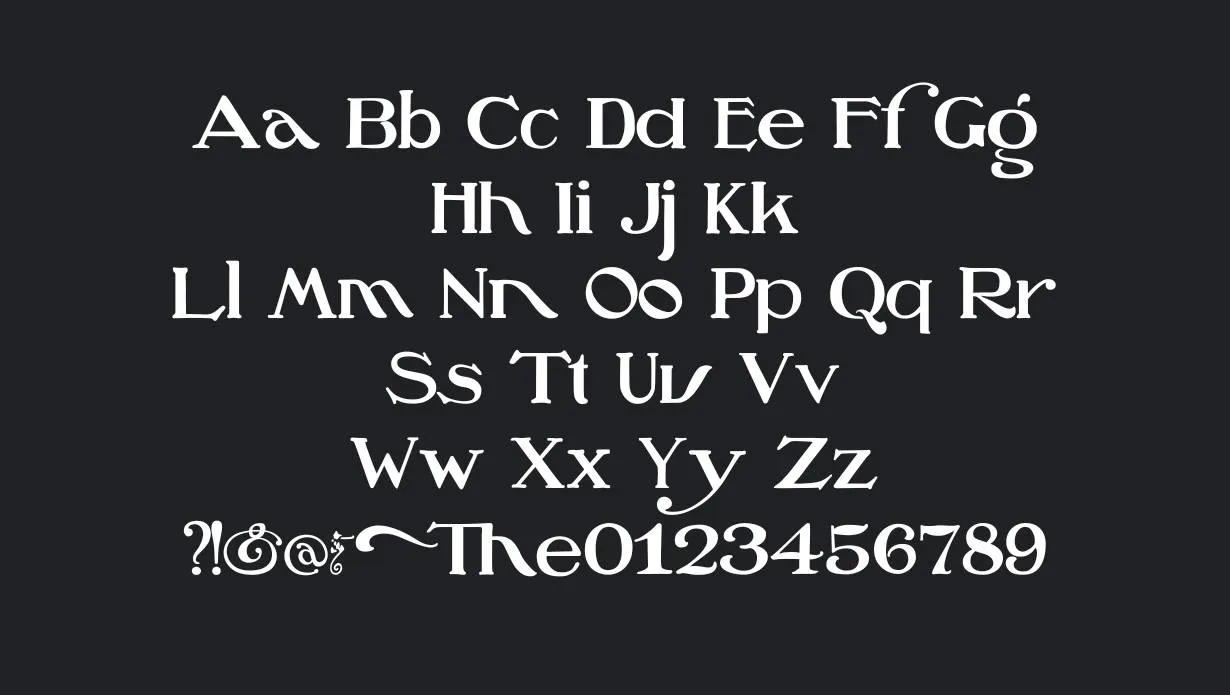
OZ’s Wizard Scarecrow font is a tale in each letter, a whimsical journey through enchanted realms. Using this font feels like typing a magical narrative, where each character is an intricate part of a captivating story.
It’s as if your words become spellbound with secrets and mystique, taking the reader on an adventure through a land of wonder and charm.